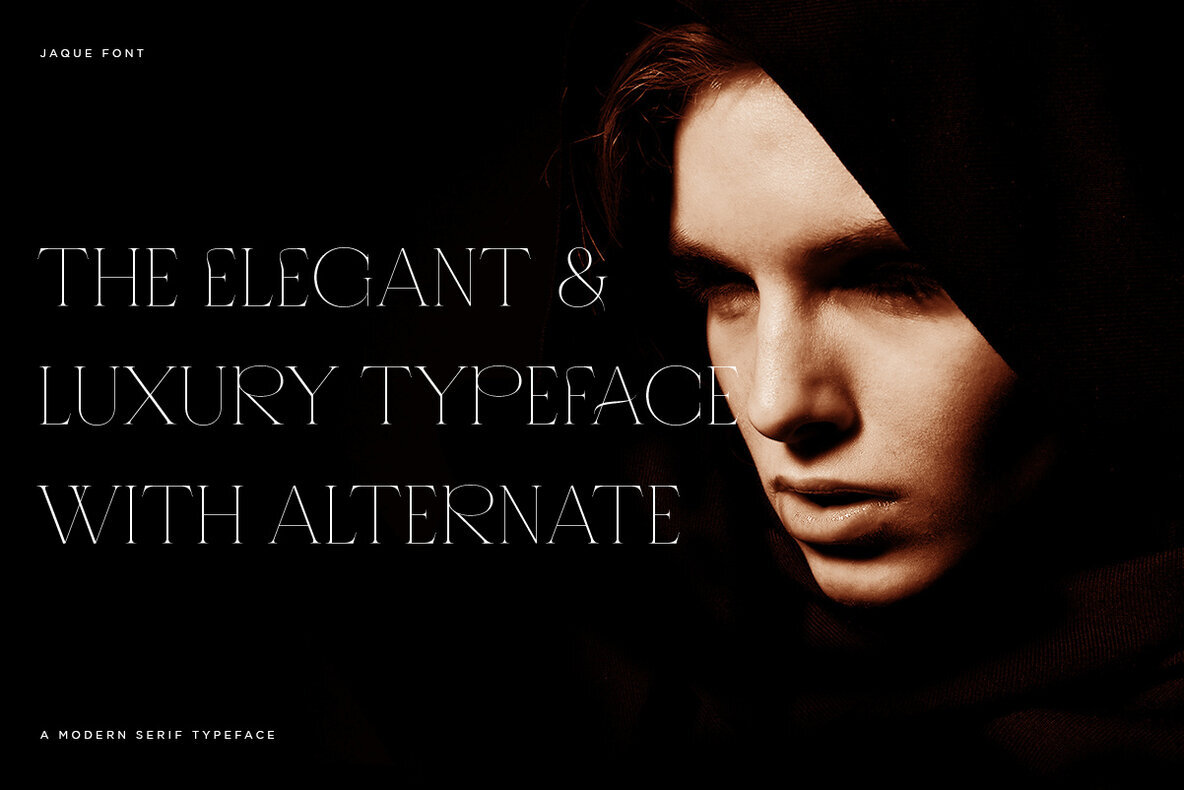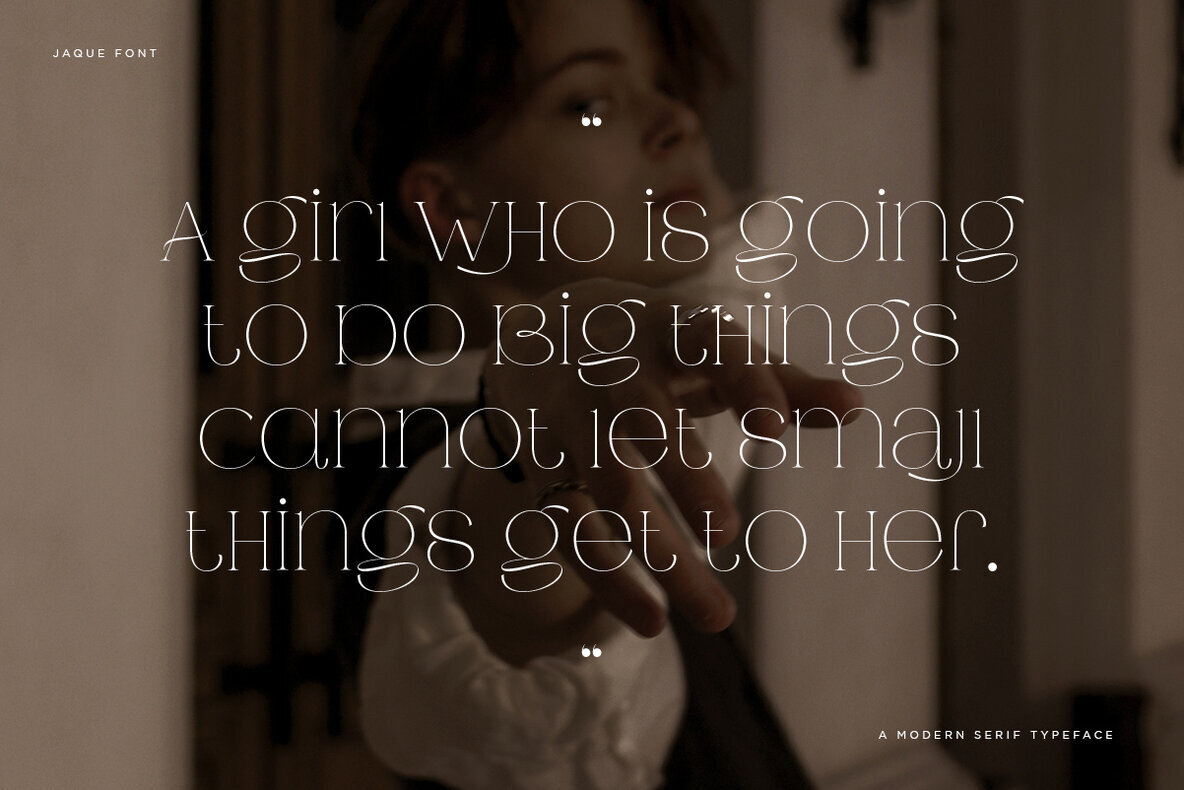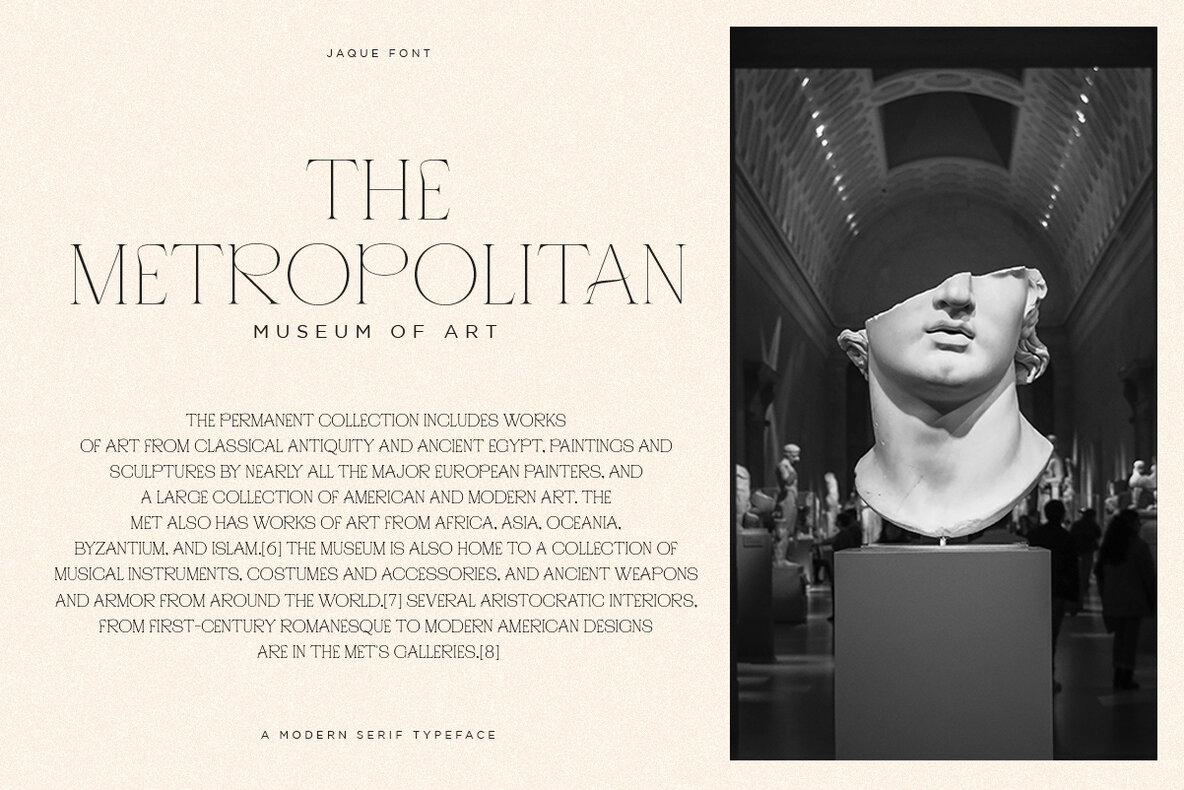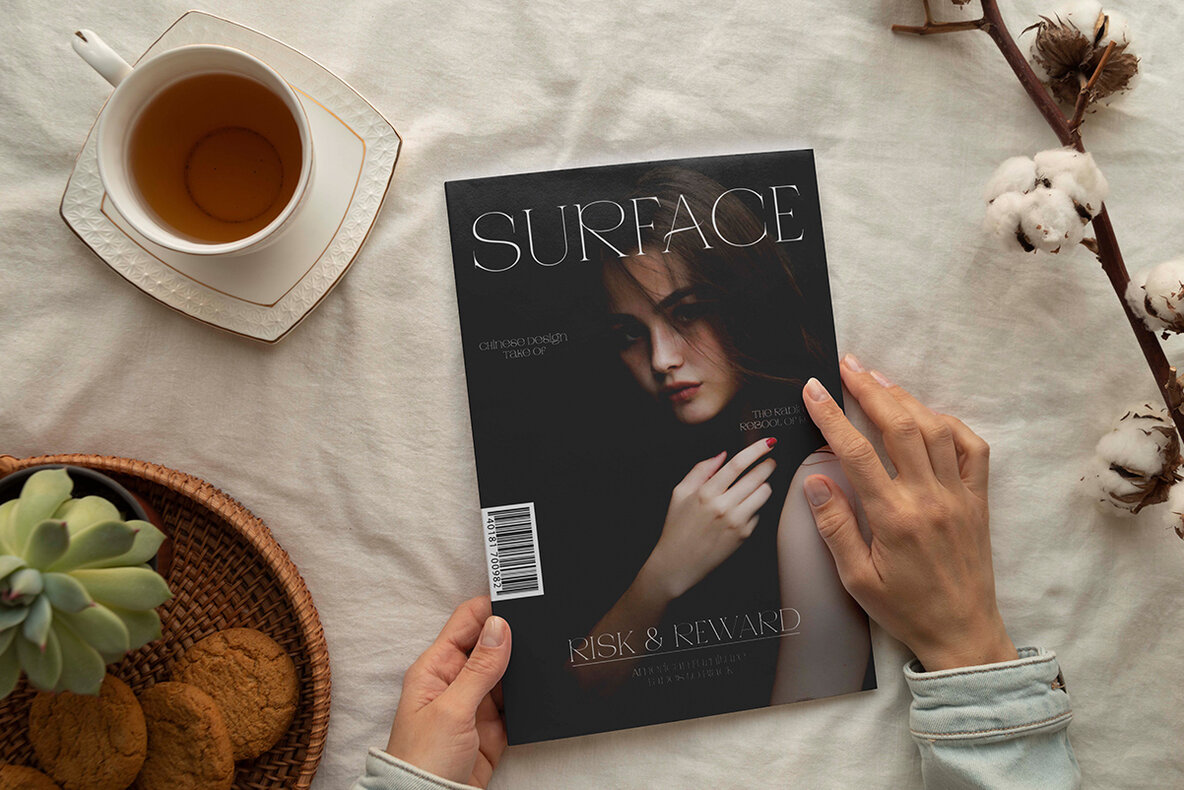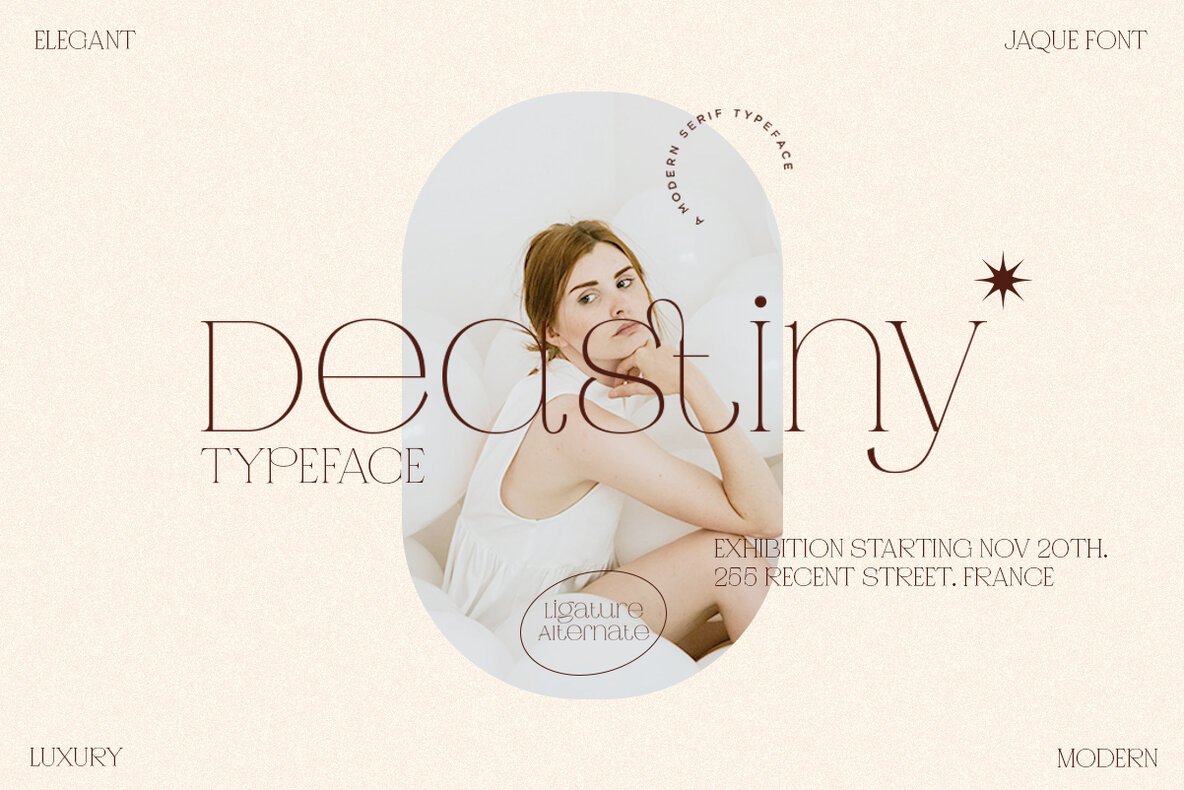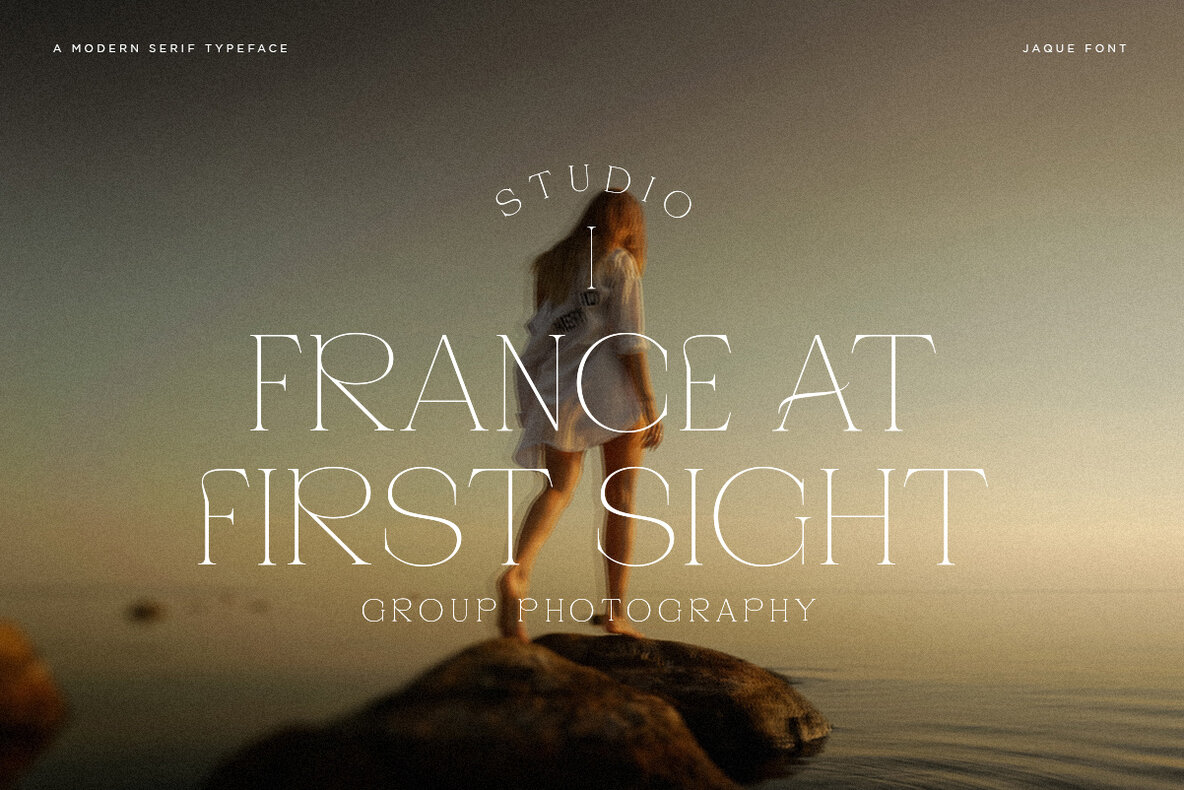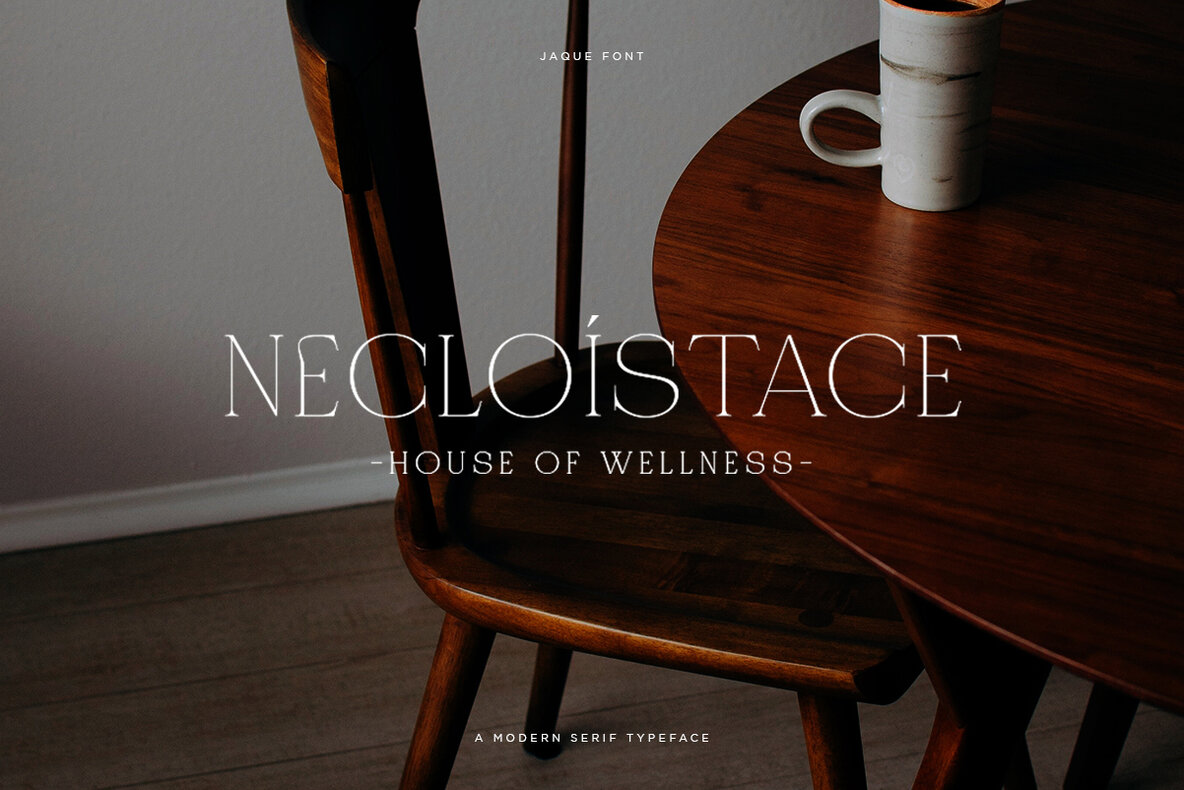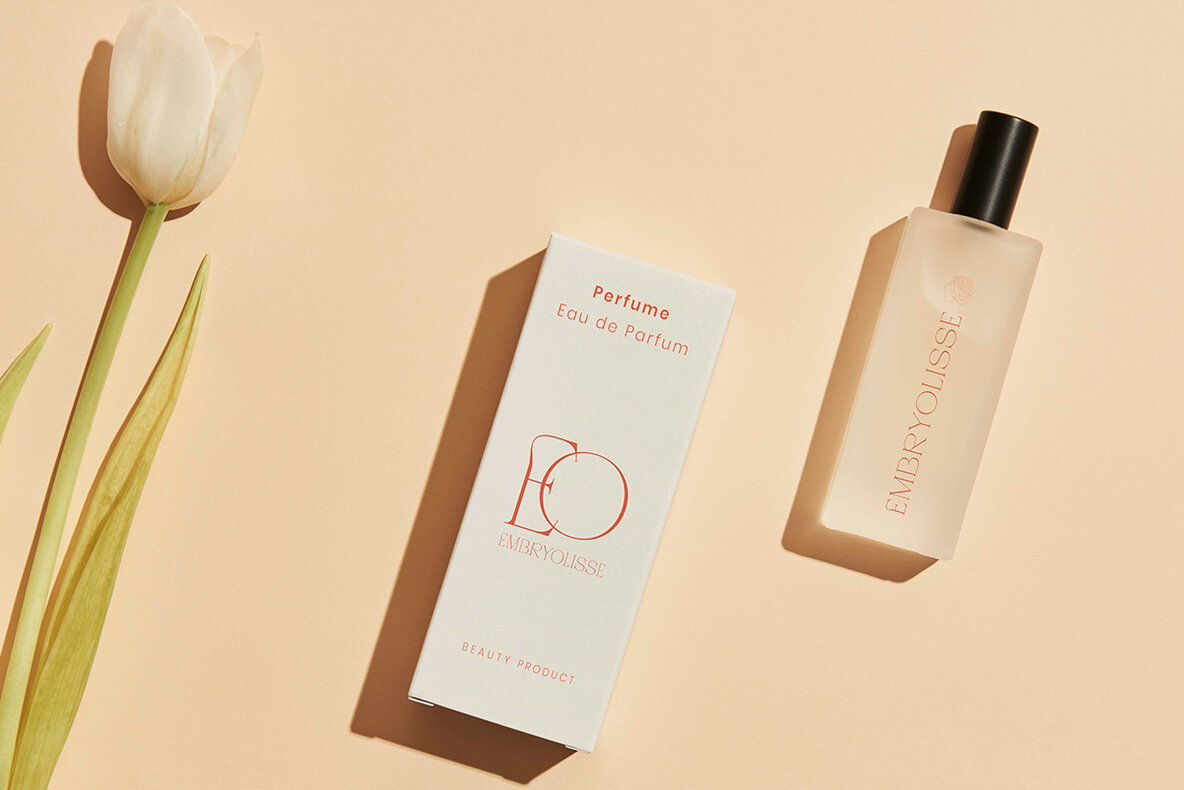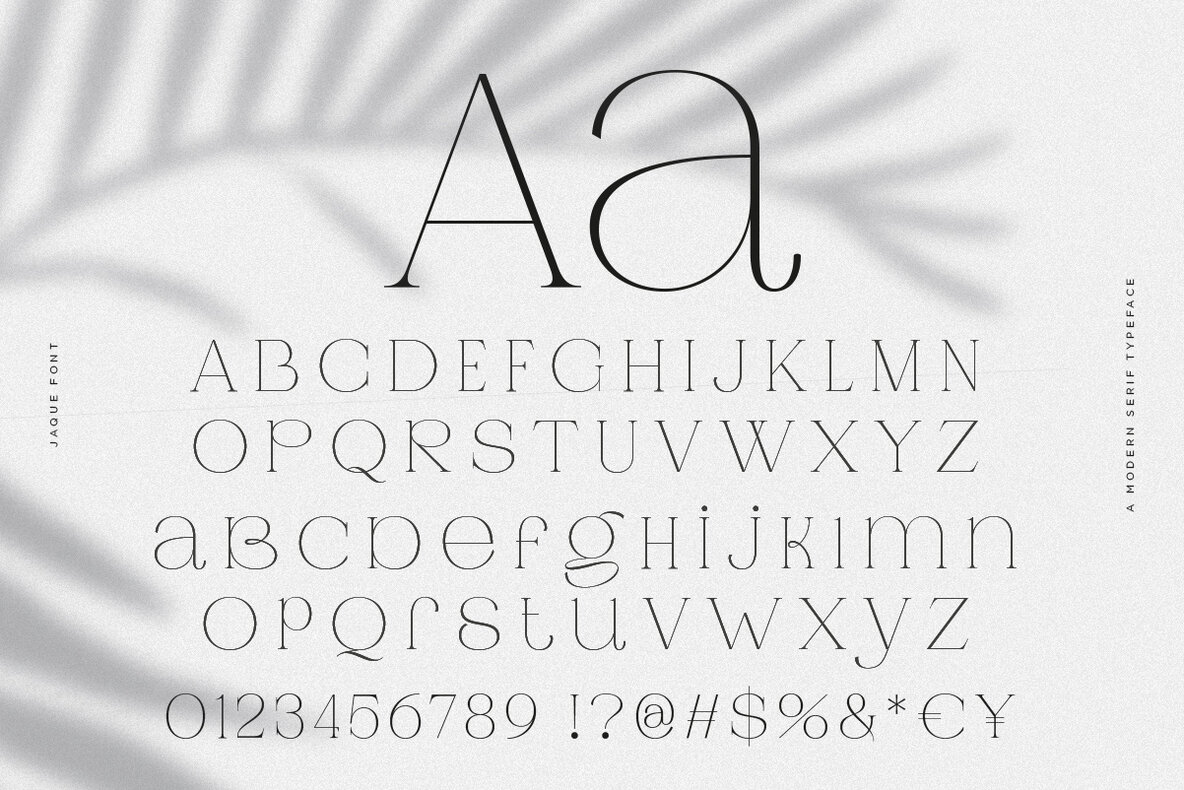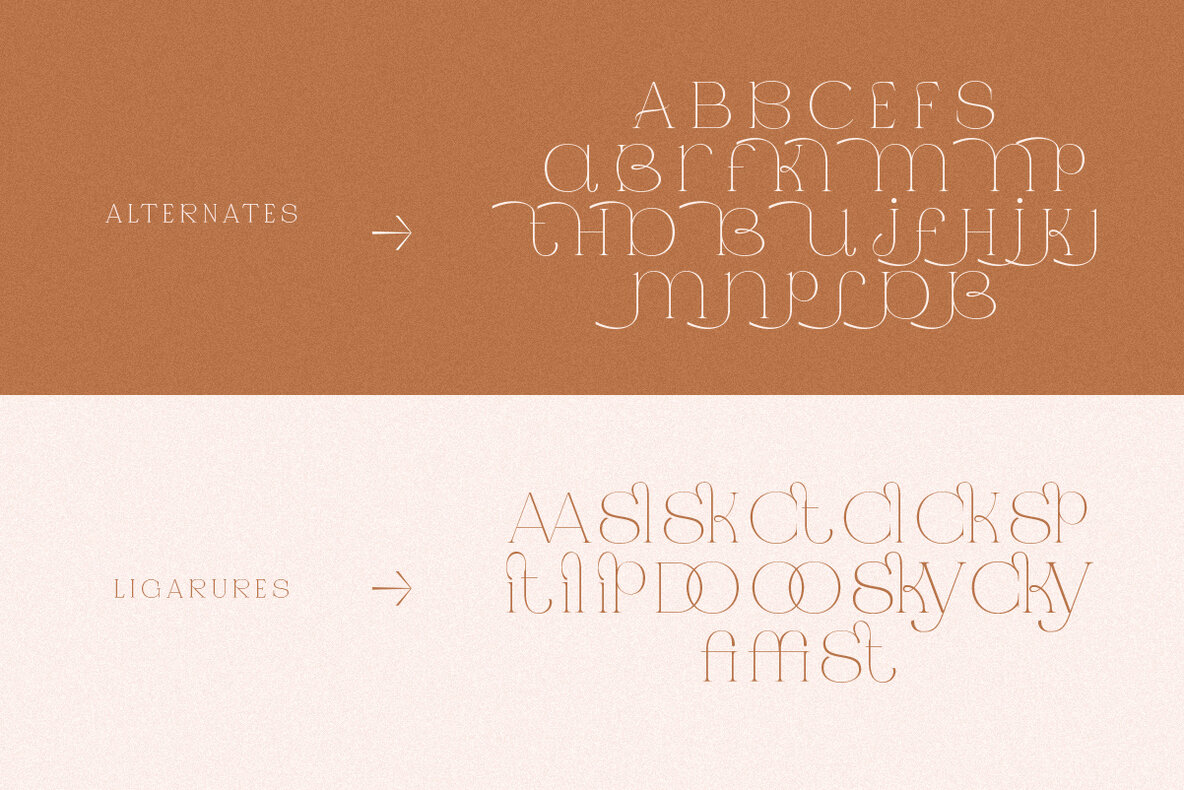
Jaque Royal Font
Jaque Regular
Immerse yourself in the timeless elegance of Jaque Royal, a serif font that captures the essence of vintage style. With its retro flair, this typeface adds a touch of classic sophistication to any design project. Ideal for those seeking to evoke nostalgia, Jaque Royal combines traditional design elements with modern functionality, making it well-suited for a range of creative endeavors. Licensing Details: No special software is needed to use this font; it integrates seamlessly with standard programs and website applications that support basic fonts.Jaque Royal: A Stylish Vintage Serif